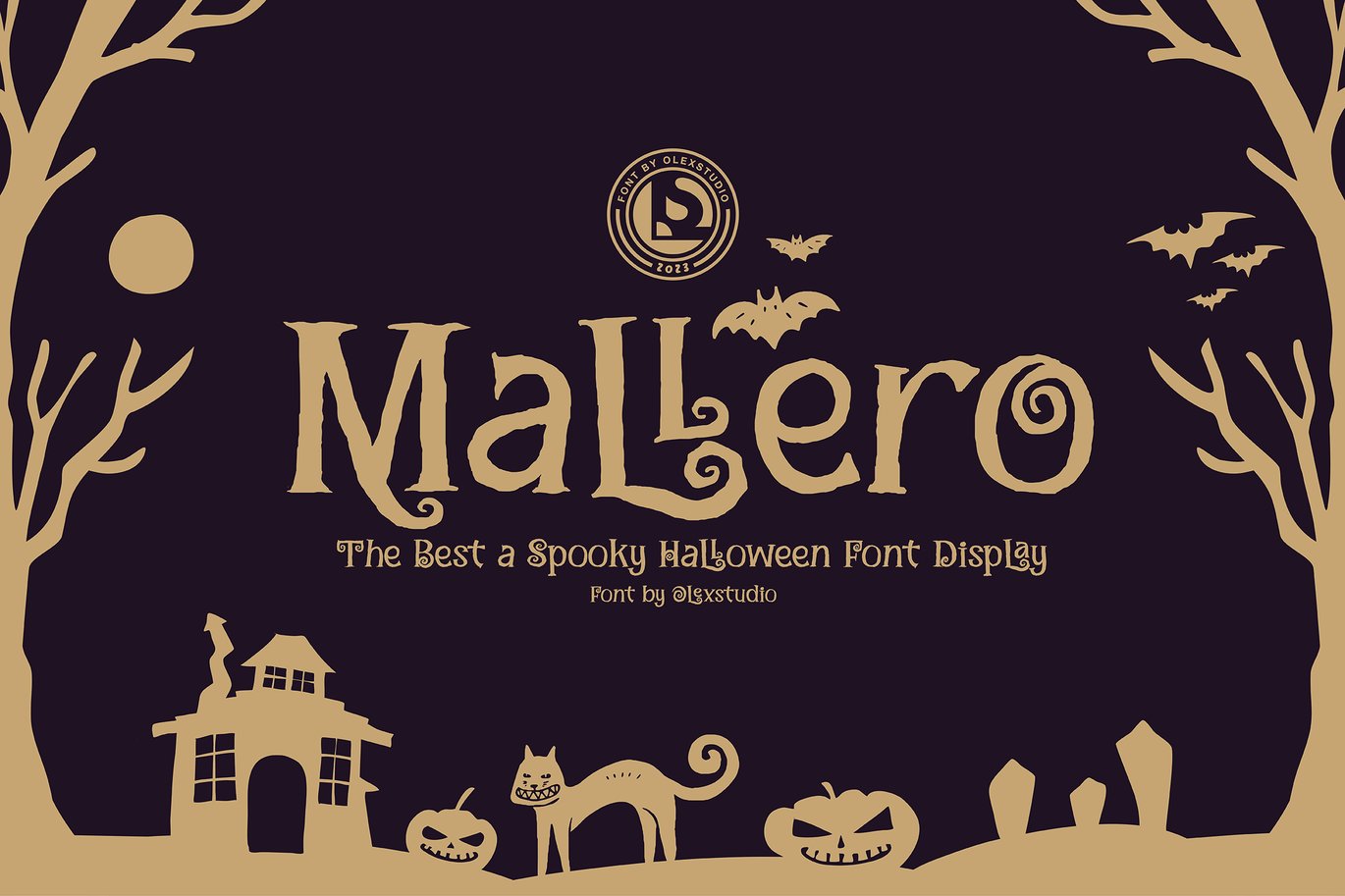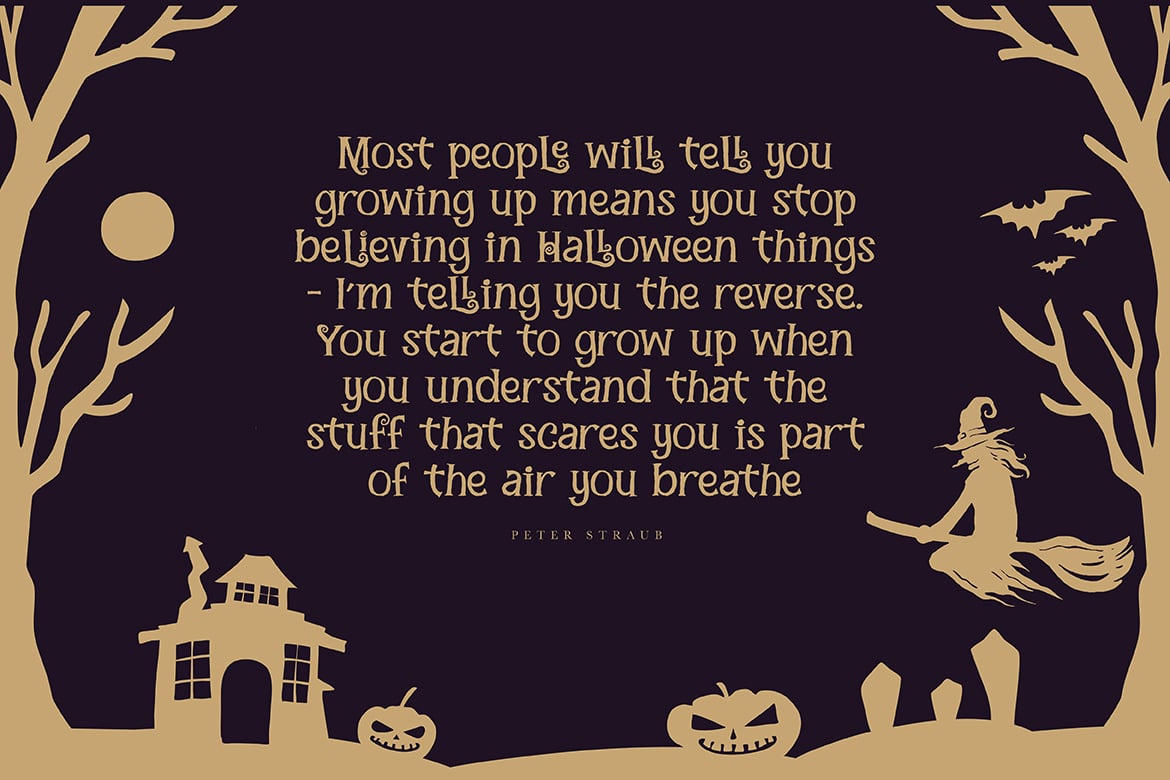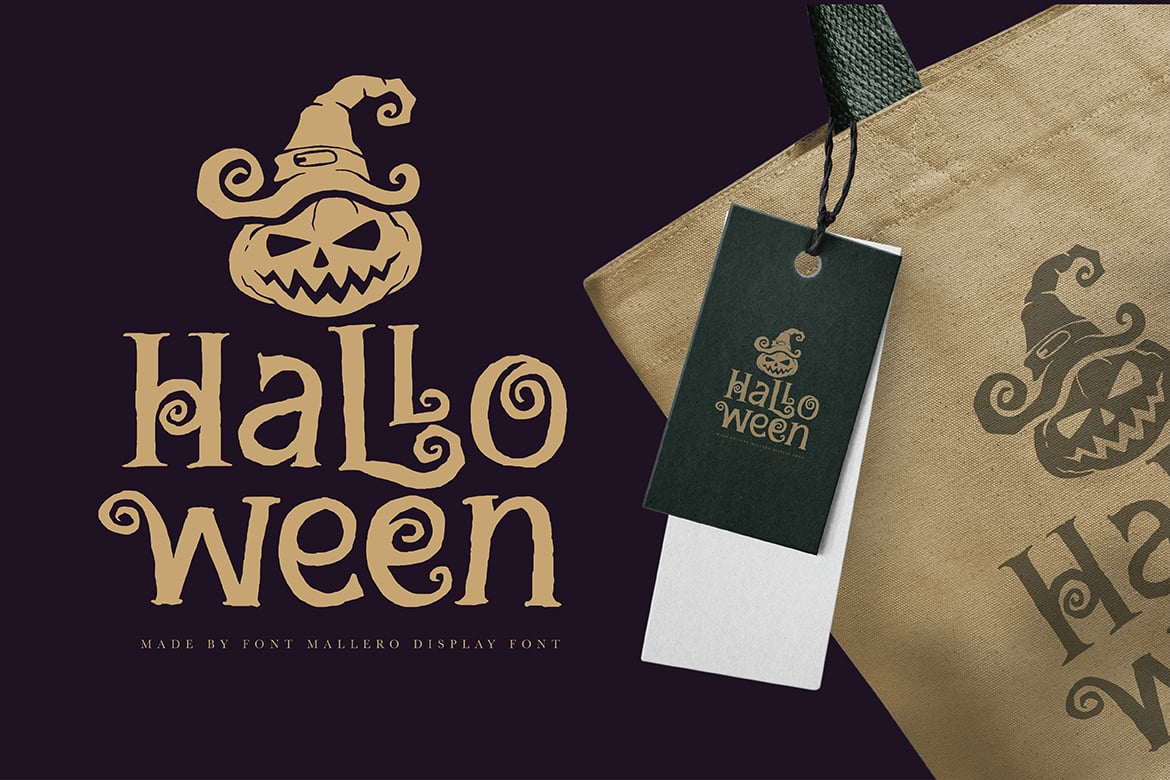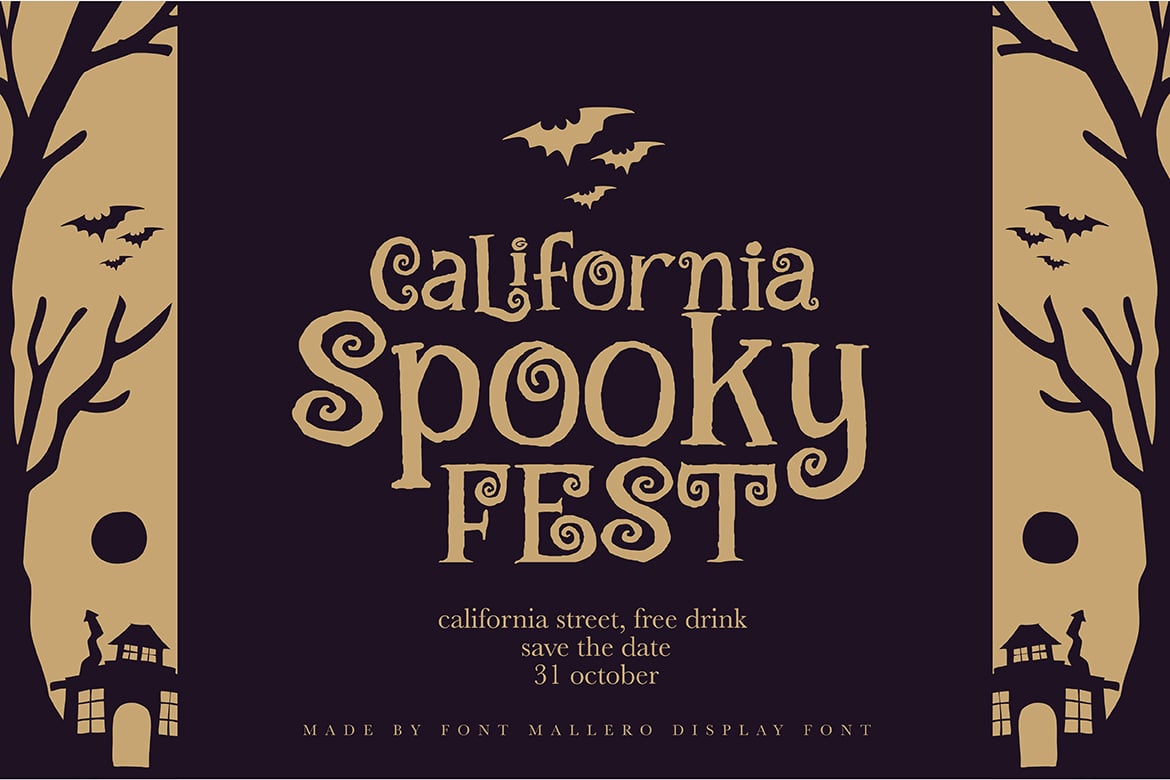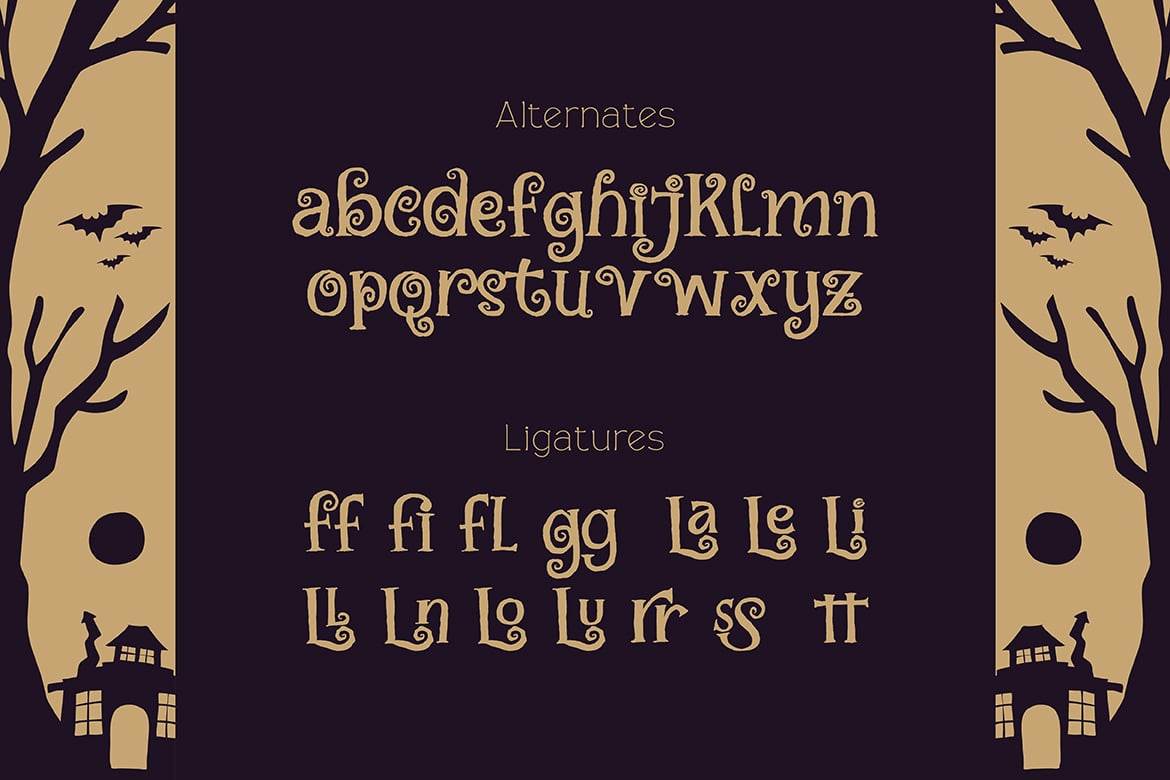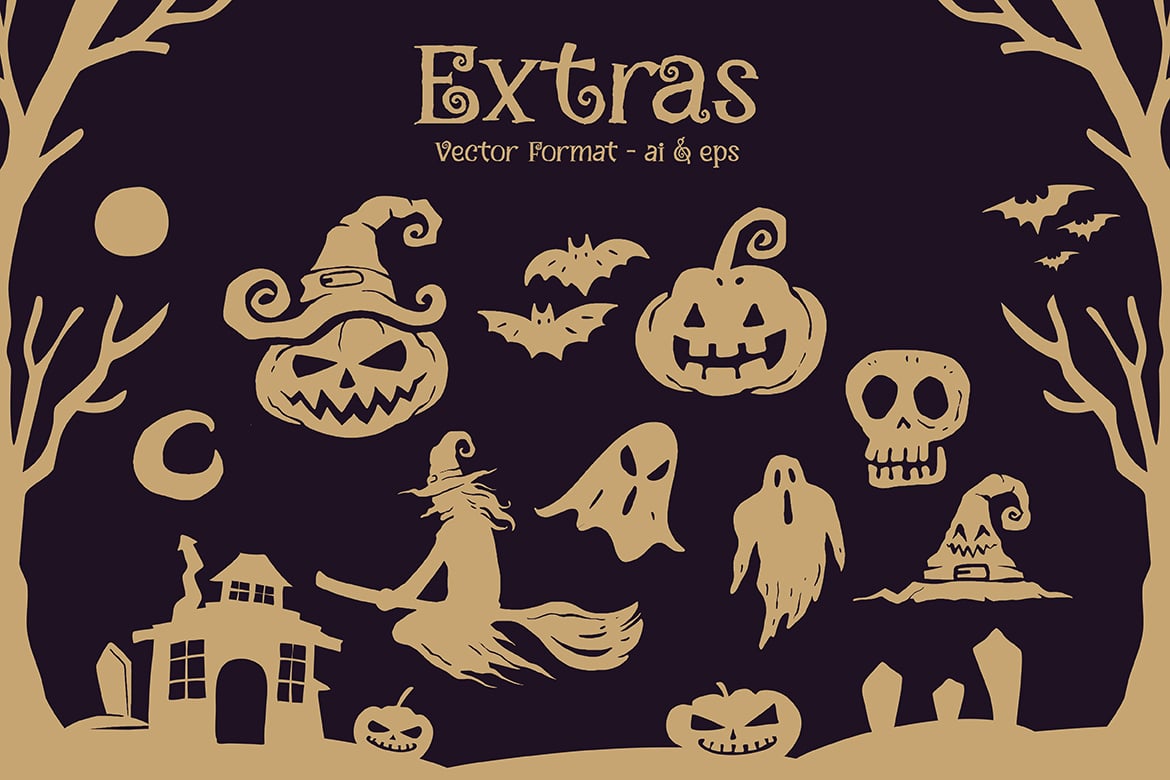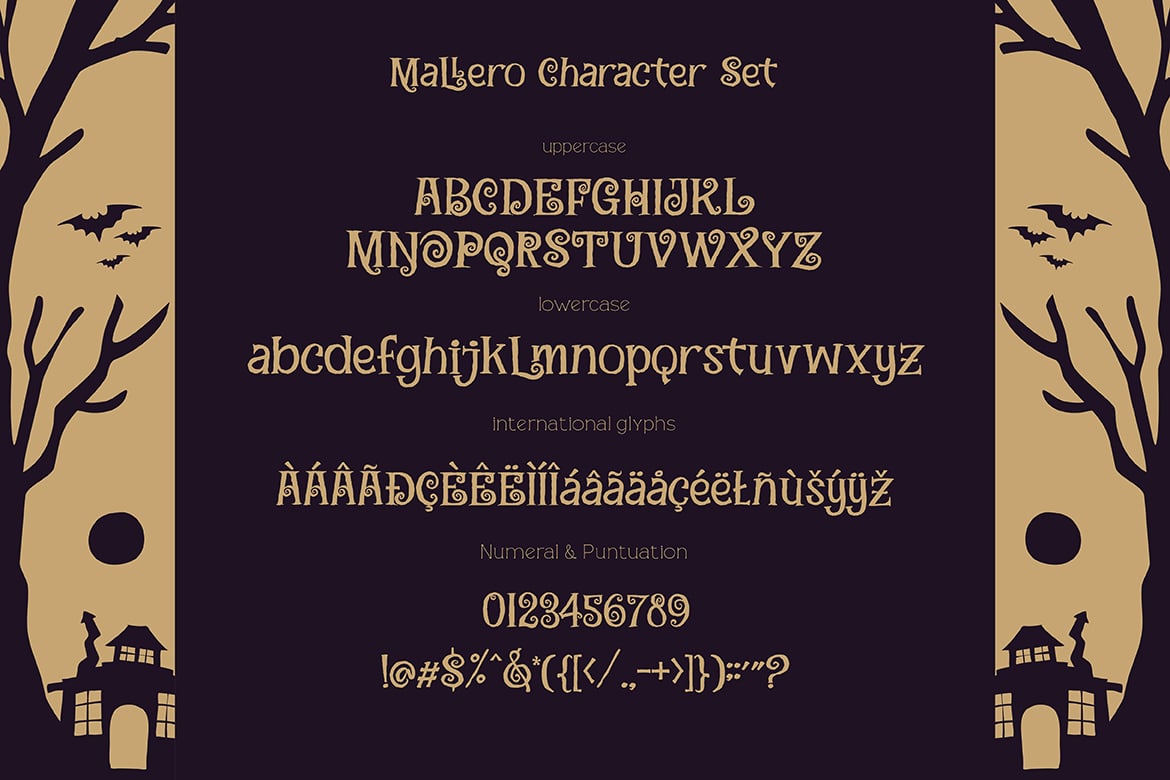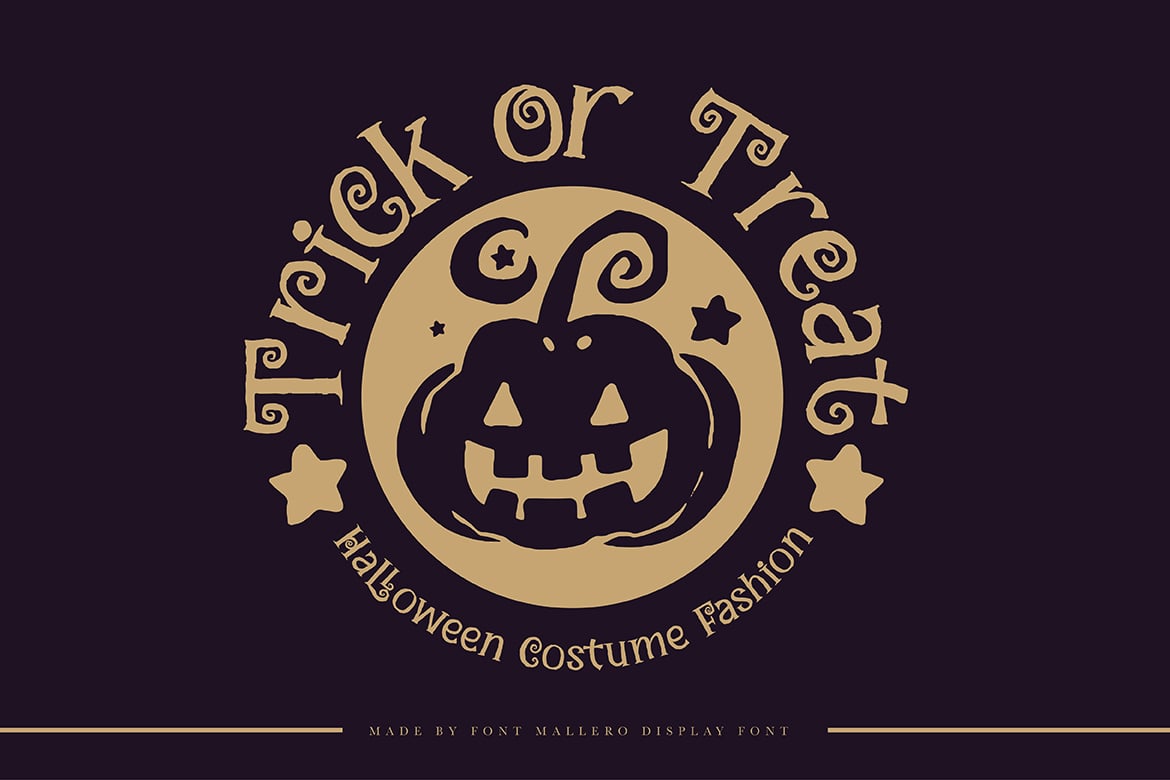
MALLERO – Halloween Font Display
MALLERO – Halloween Display Font will look gorgeous on all your designs, invitation, poster design, book design, branding materials, logo’s, and all project design other.
MALLERO – Halloween Display Font contains standard characters, Uppercase, Lowercase Alternates, numbers, punctuation, ligatures and international glyphs. You will receive OTF, TTF files ,WEBFONT and extras halloween character vector AI/eps file.